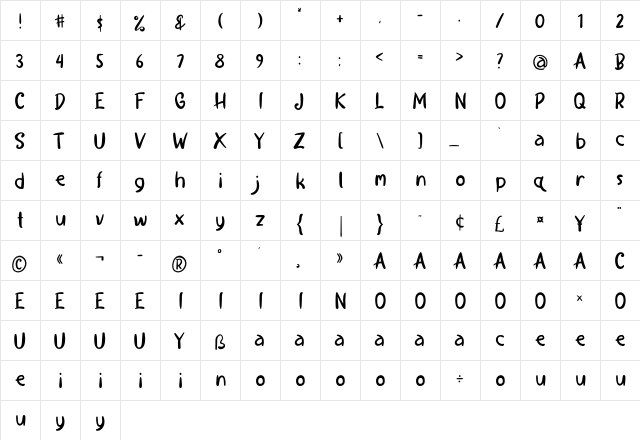
Recipety Regular
Design Context for Recipety Typeface
Recipety is a composed and adaptable typeface that performs quietly and consistently across a wide range of design contexts.
Pro Tip: Use Recipety in both headline and body roles to test its range before committing to a single application.